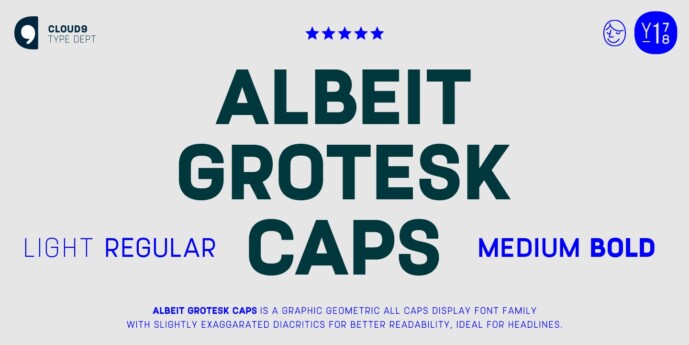
Albeit Grotesk Caps Font Family
Designer: Cloud9 Type Dept
About Albeit Grotesk Caps Font Family
Albeit Grotesk Caps is a graphic geometric all caps display font family of four weights (Light, Regular, Medium and Bold) with slightly exaggarated diacritics for better readability making it ideal for headlines.